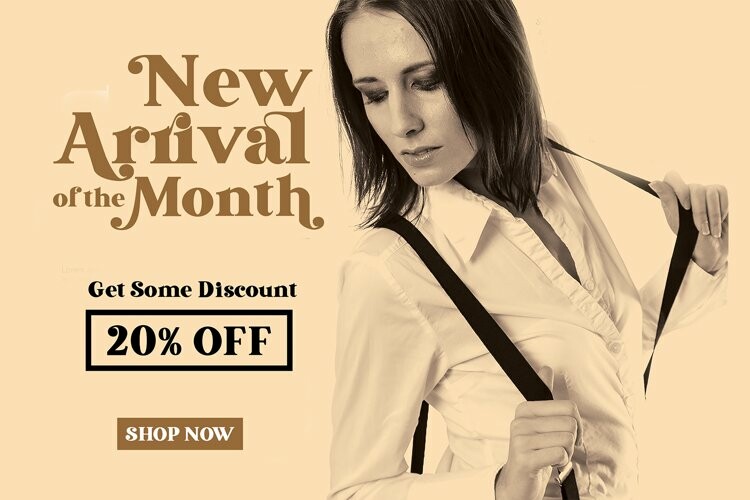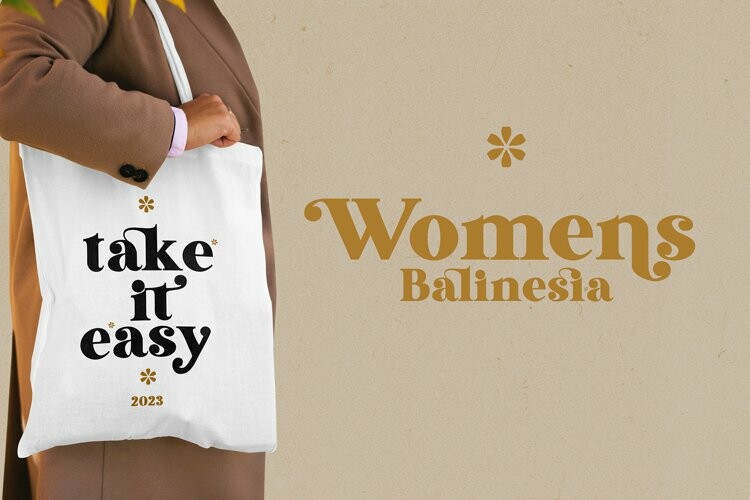
Poshgirl Font
Poshgirl FontPoshgirl is a slick and modern, chic, elegant and refined two-sided model with a simple and symmetrical wheelbase. With bold, optimism and joy. It is defined by smooth curves and is perfect for fashion brands or editorial designs.